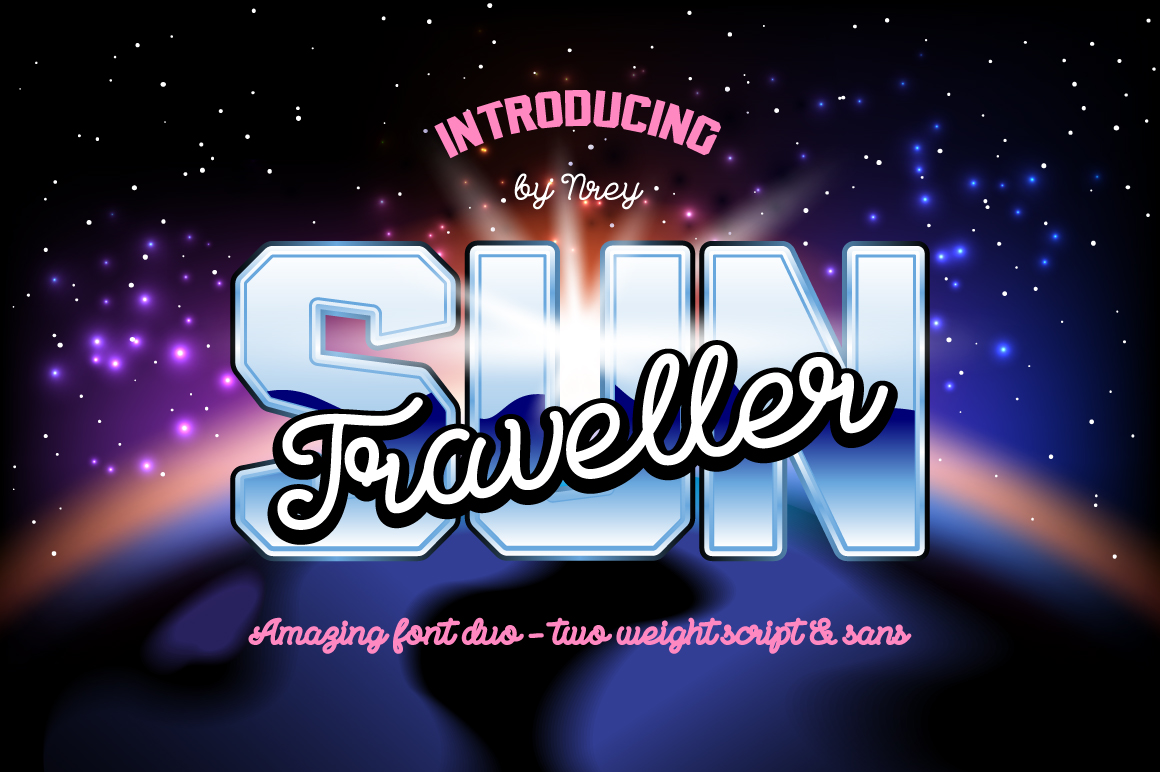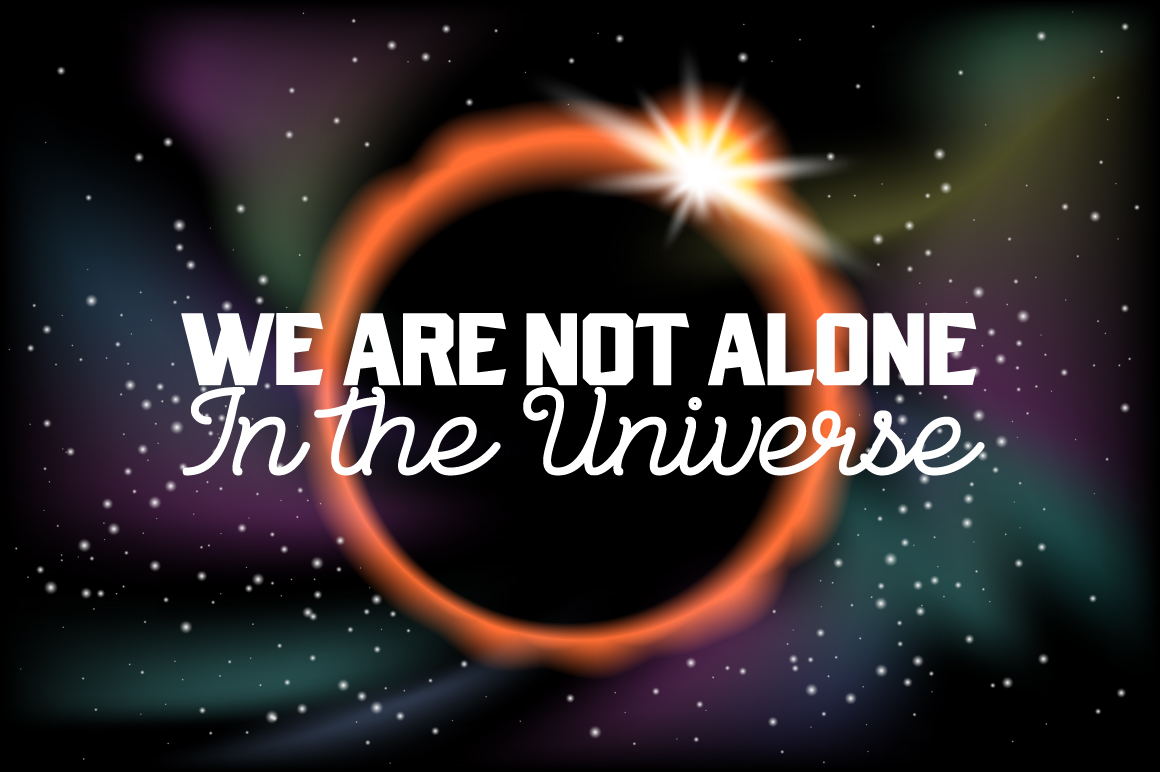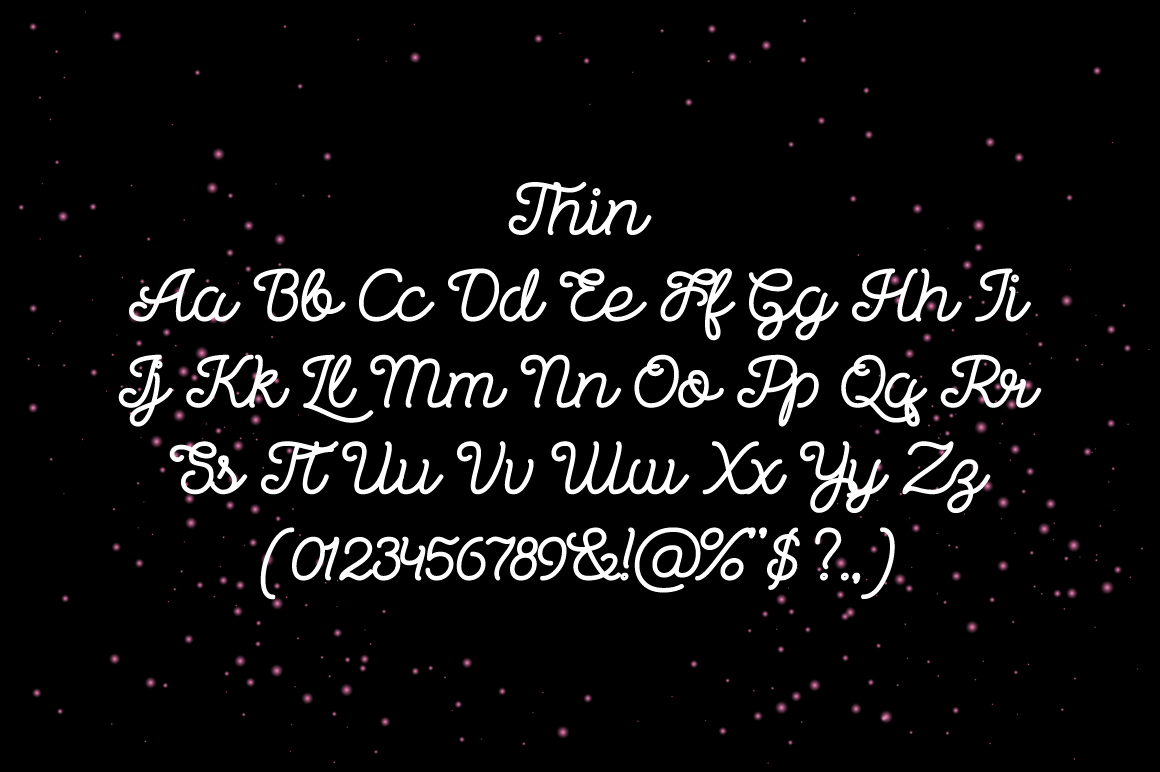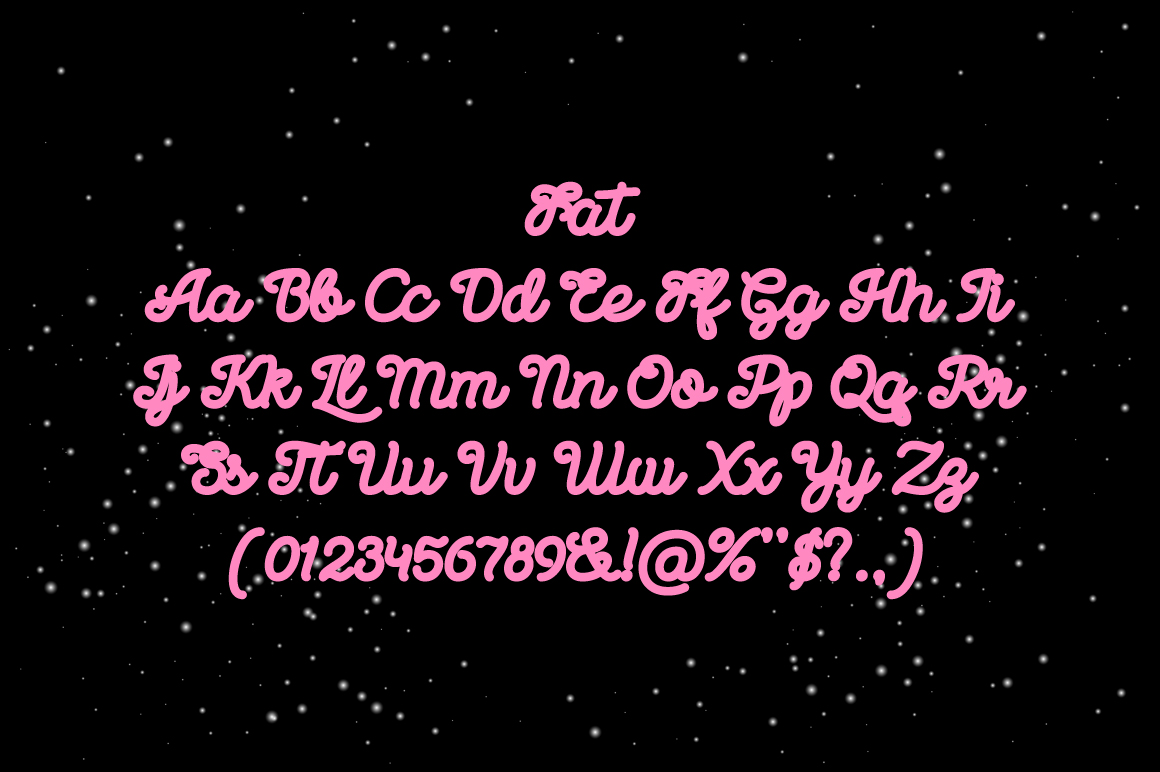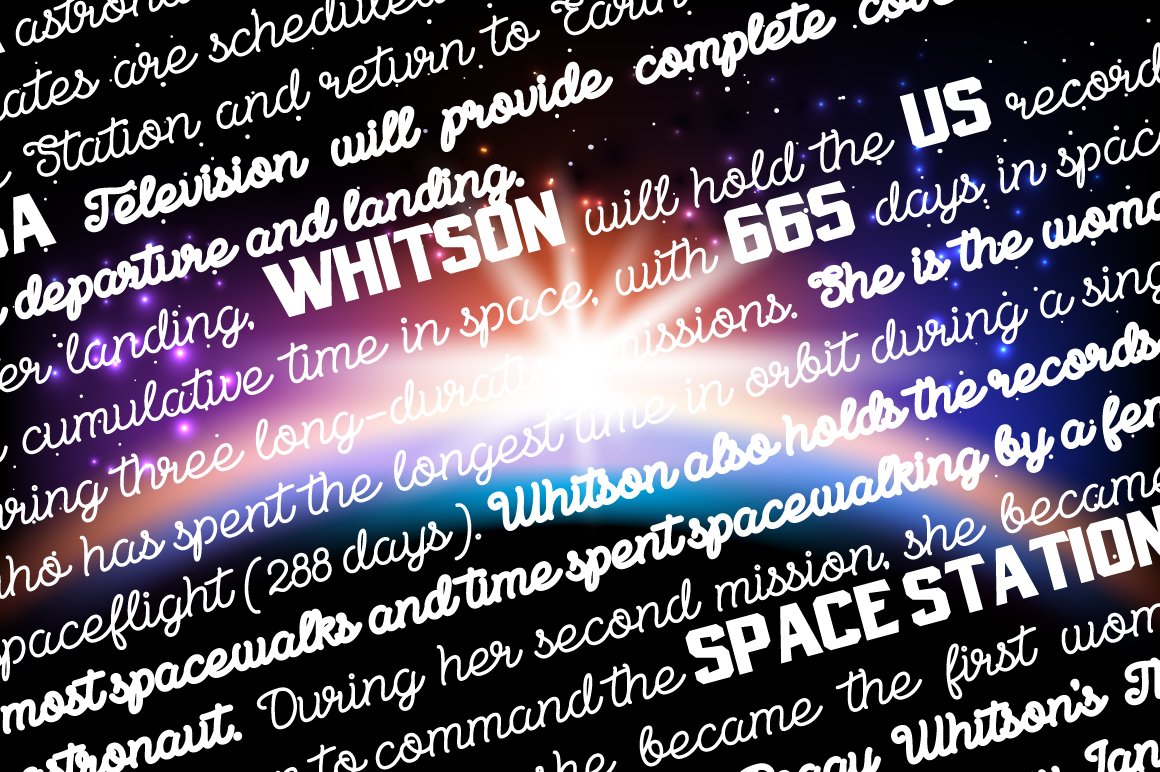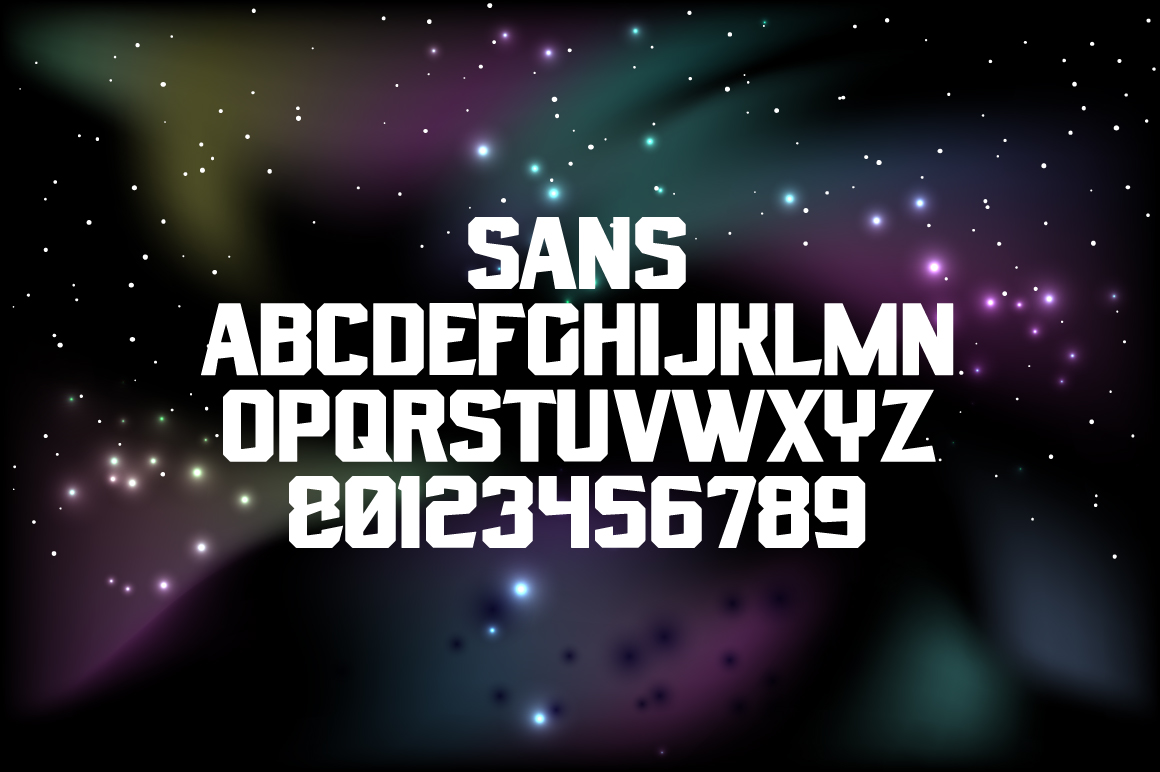
Sun Traveller Font
About Sun Traveller Font
Give your designs a ton of style with Sun Traveller, a fashionable font duo. This font family comes with two monoline scripts and a capitalized sans serif, making a perfect retro style accessible for all your designs.